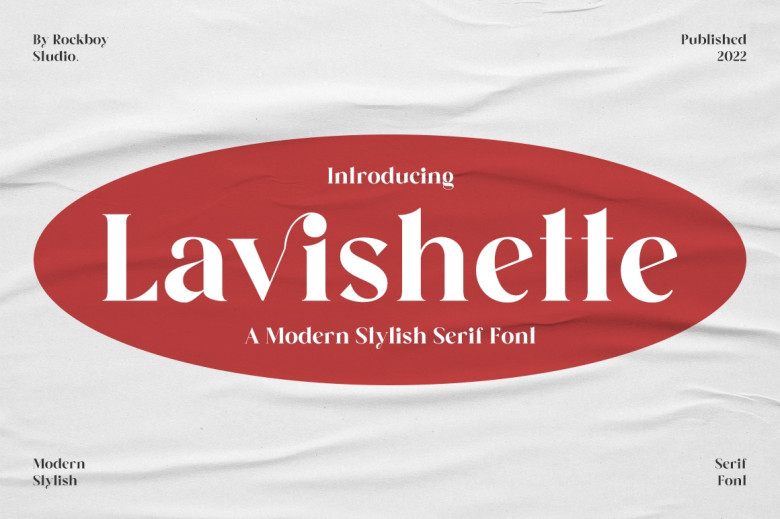
Lavishette Font
Lavishette An elegant, thin lettered, and distinct serif font. Lavishette is an ideal choice for a broad range of designs thanks to its neat and clean design.
Lavishette Serif Font